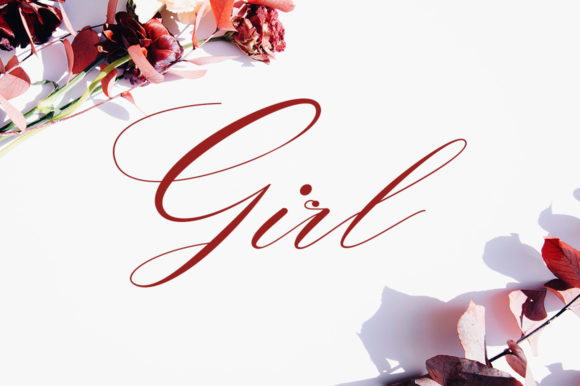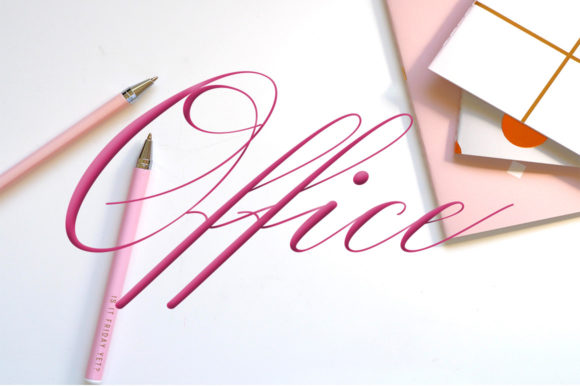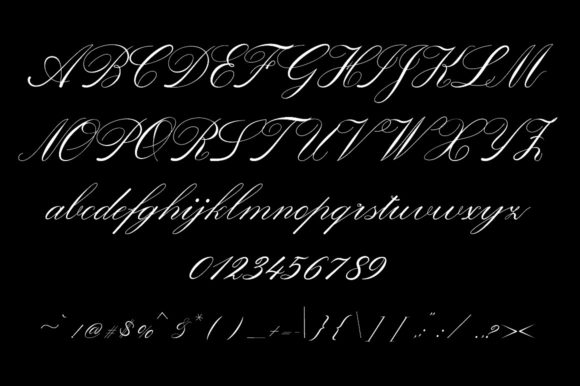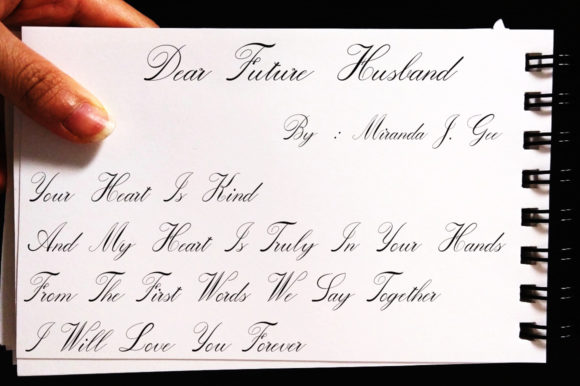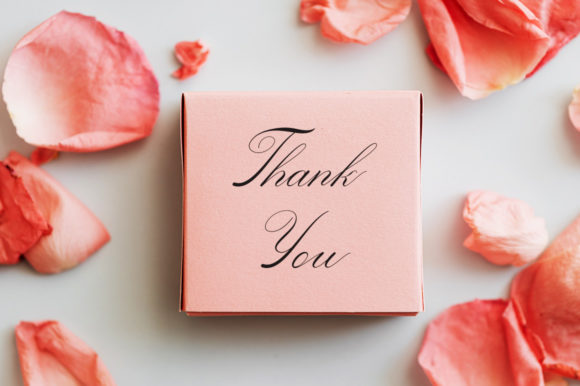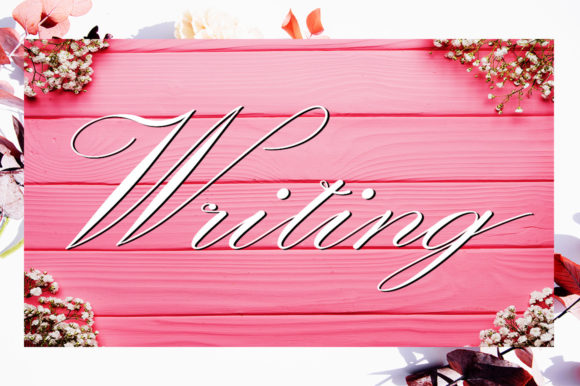
Writing Font
About Writing Font
Writing is an exquisite script font made for product packaging, invitation cards, t-shirt screen printing, shop names, event posters and all aspects that require high-quality vibes. Add it confidently to your projects, and you will love the results.